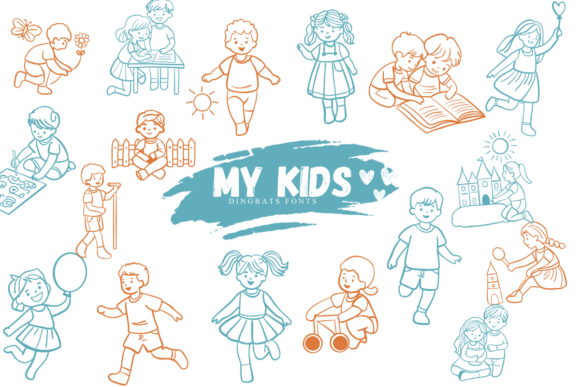
My Kids Font and Dingbats: A Charming Collection for Educational and Family-Friendly Designs
Are you looking for a unique and playful way to add a personal touch to your educational projects, kids’ event posters, invitations, and scrapbooking? Look no further than My Kids Font and My Kids Dingbats, a charming collection of hand-drawn doodles featuring children at play, learning, and exploring. In this article, we’ll take a closer look at this delightful font and dingbat collection, and explore how it can add a fun and nostalgic vibe to your designs.
What is My Kids Font?
My Kids Font is a one-of-a-kind, hand-drawn font that features a playful and childlike aesthetic. The font is perfect for creating educational materials, kids’ event posters, invitations, and scrapbooking pages that require a personal and whimsical touch. With its unique and quirky style, My Kids Font is sure to capture the attention of kids and adults alike.
What is My Kids Dingbats?
My Kids Dingbats is a charming collection of hand-drawn doodles featuring children at play, learning, and exploring. The dingbats are designed to add a fun and nostalgic vibe to your designs, making them perfect for educational projects, kids’ event posters, invitations, scrapbooking, and more. The collection includes a wide range of illustrations, from kids engaging in various activities to objects and symbols that are commonly associated with childhood.
Features of My Kids Font and Dingbats
So, what makes My Kids Font and Dingbats so special? Here are just a few of the features that set them apart:
- Hand-drawn with love: Each character and doodle in the My Kids Font and Dingbats collection has been carefully hand-drawn with love and attention to detail.
- Unique and quirky style: The font and dingbats have a one-of-a-kind, playful aesthetic that’s sure to capture the attention of kids and adults alike.
- Perfect for educational projects: My Kids Font and Dingbats are ideal for creating educational materials, such as worksheets, activity sheets, and educational posters.
- Great for kids’ events: The font and dingbats are perfect for creating kids’ event posters, invitations, and flyers that require a fun and playful touch.
- Ideal for scrapbooking: My Kids Font and Dingbats can be used to add a personal and whimsical touch to scrapbooking pages.
Uses for My Kids Font and Dingbats
The possibilities are endless when it comes to using My Kids Font and Dingbats. Here are just a few ideas to get you started:
- Educational materials: Use My Kids Font and Dingbats to create engaging and interactive educational materials, such as worksheets, activity sheets, and educational posters.
- Kids’ event posters: Create eye-catching kids’ event posters, invitations, and flyers that will capture the attention of kids and parents alike.
- Scrapbooking: Add a personal and whimsical touch to scrapbooking pages with My Kids Font and Dingbats.
- Invitations: Use the font and dingbats to create custom invitations for kids’ parties, events, and activities.
- Family-friendly themes: My Kids Font and Dingbats are perfect for creating family-friendly themes, such as brochures, flyers, and posters.
Benefits of Using My Kids Font and Dingbats
So, why should you choose My Kids Font and Dingbats for your next project? Here are just a few benefits of using this charming font and dingbat collection:
- Adds a personal touch: My Kids Font and Dingbats add a personal and whimsical touch to your designs, making them more engaging and interactive.
- Unique and eye-catching: The font and dingbats have a one-of-a-kind, playful aesthetic that’s sure to capture the attention of kids and adults alike.
- Saves time: With My Kids Font and Dingbats, you can create professional-looking designs in no time, saving you time and effort.
- Perfect for kids: The font and dingbats are designed with kids in mind, making them perfect for educational projects, kids’ event posters, and more.
Tips for Using My Kids Font and Dingbats
Here are a few tips for getting the most out of My Kids Font and Dingbats:
- Experiment with different colors: Try out different colors and color combinations to add an extra layer of fun and personality to your designs.
- Mix and match: Combine My Kids Font and Dingbats with other fonts and graphics to create unique and eye-catching designs.
- Use for a variety of projects: Don’t be afraid to think outside the box when it comes to using My Kids Font and Dingbats. The font and dingbats can be used for a wide range of projects, from educational materials to kids’ event posters and more.
In conclusion, My Kids Font and My Kids Dingbats are a charming and playful collection of hand-drawn doodles featuring children at play, learning, and exploring. Perfect for educational projects, kids’ event posters, invitations, scrapbooking, and more, this font and dingbat collection adds a fun and nostalgic vibe to your designs. Whether youβre creating for a school or a family-friendly theme, My Kids Font and Dingbats offer a delightful visual touch that’s sure to capture the attention of kids and adults alike.